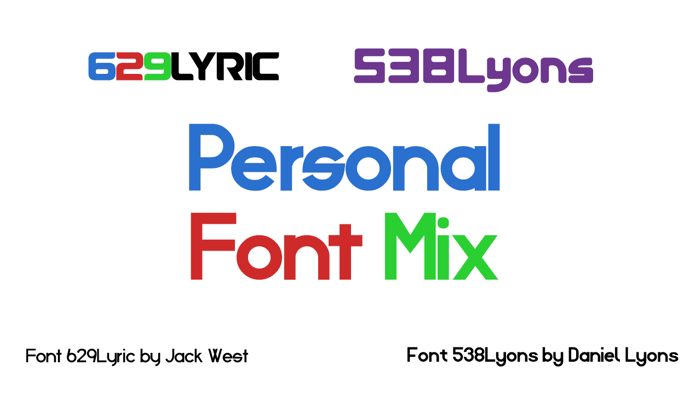
Personal Font Mix
Personal Font Mix (aka 538Lyons V2) is a font that is a mix of the fonts 629Lyric and 538Lyons Font. So what I would like to say: 629Lyric + 538Lyons = 629Lyons.
So yeah, I really wanted to do a personal font mix.